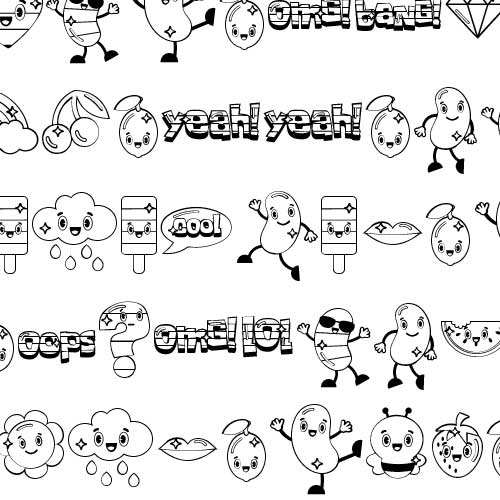
DB Cool - Beans - DB
This fun doodlebat font features 26 of the "coolest" images perfect for cards, crafts, gifts, planner stickers, scrap book pages, classrooms, teachers and more!